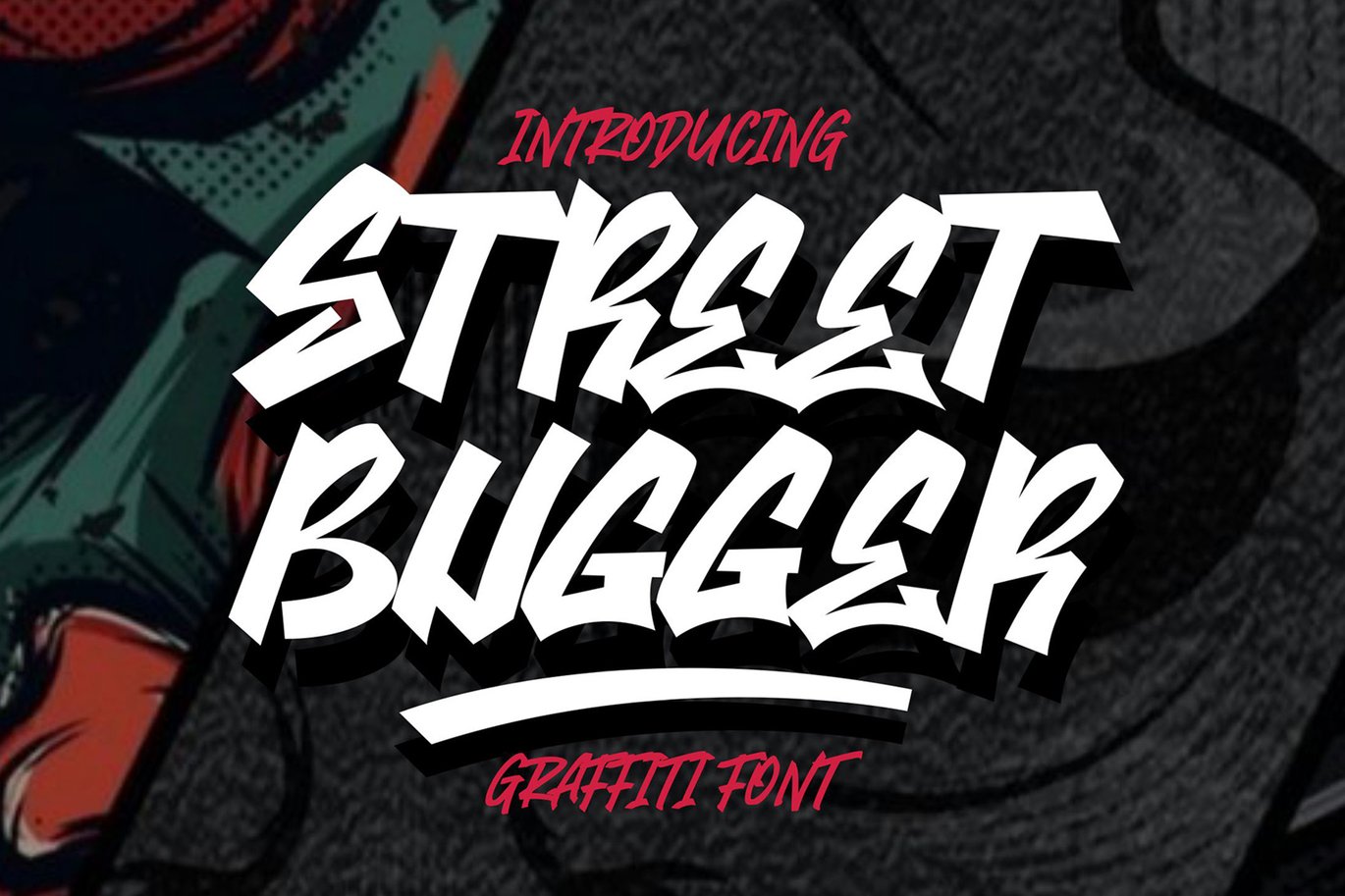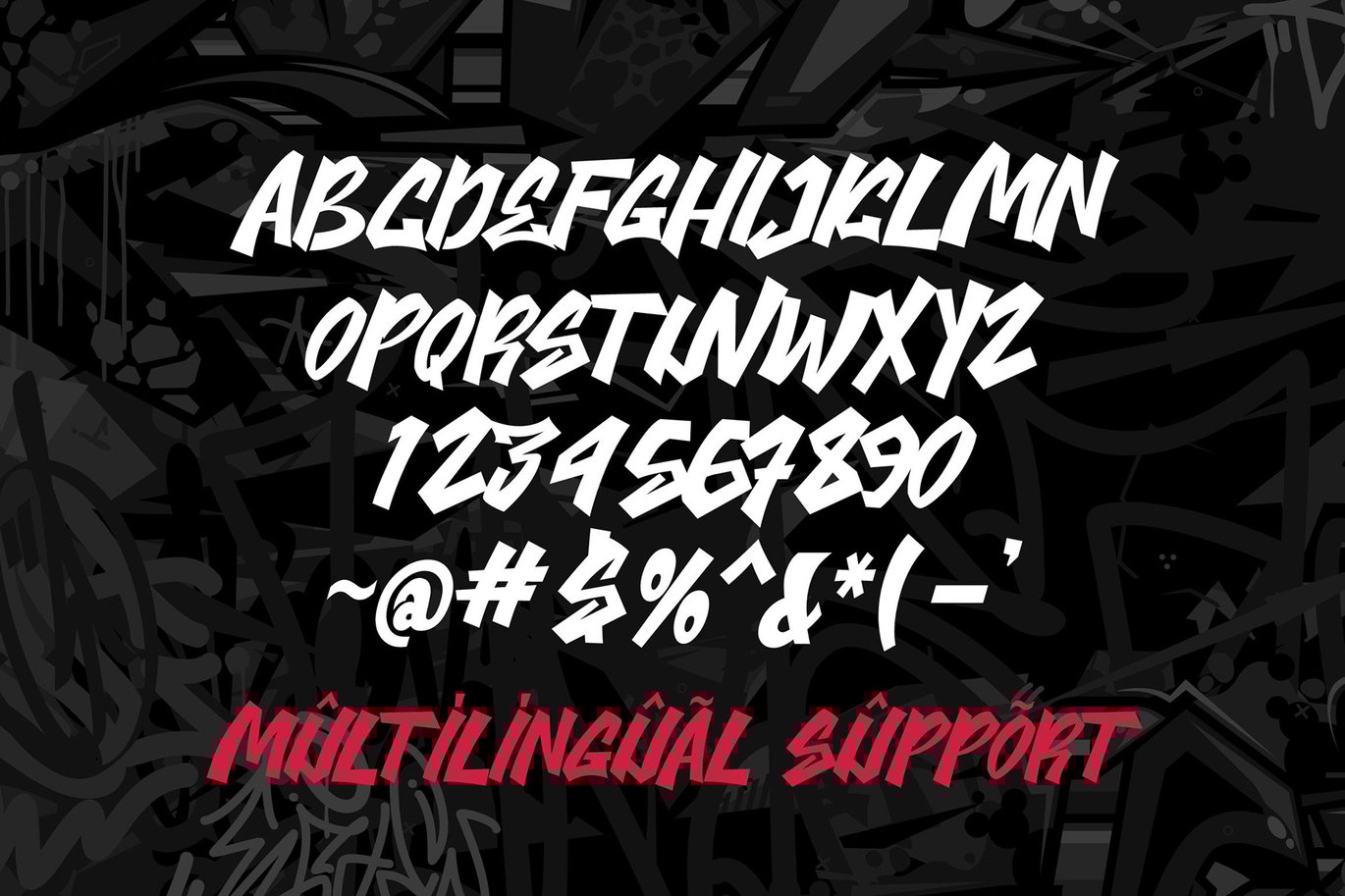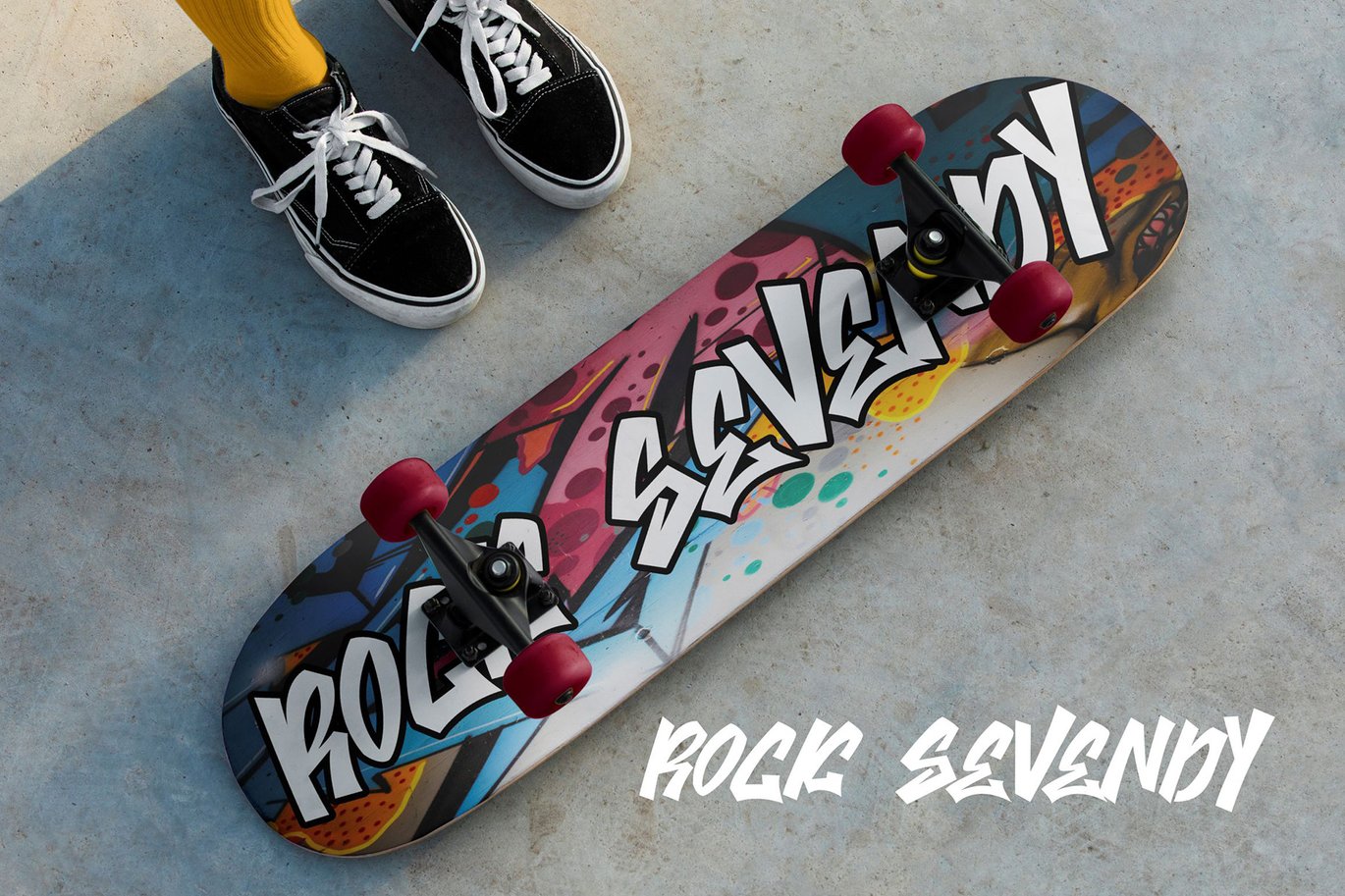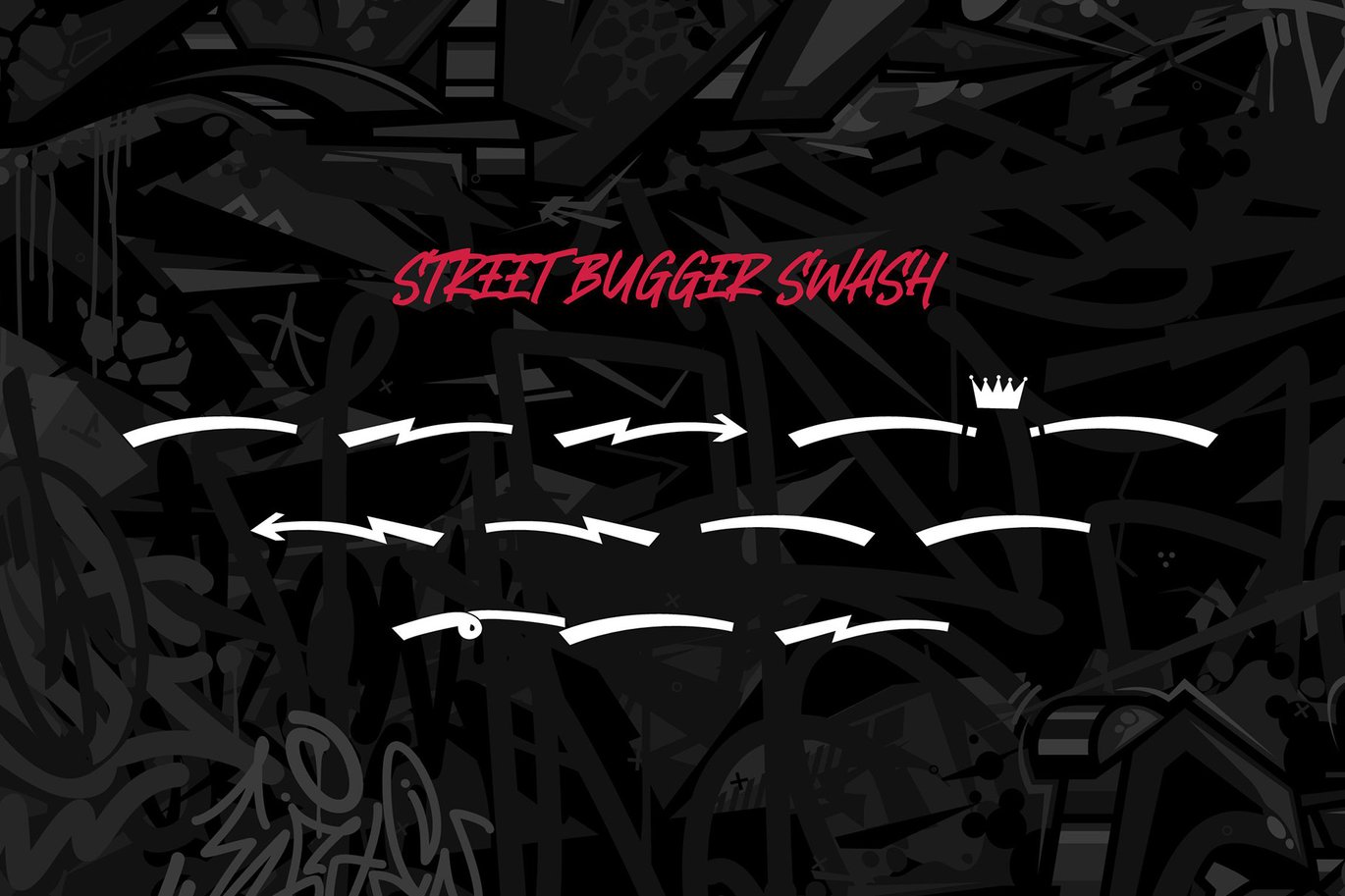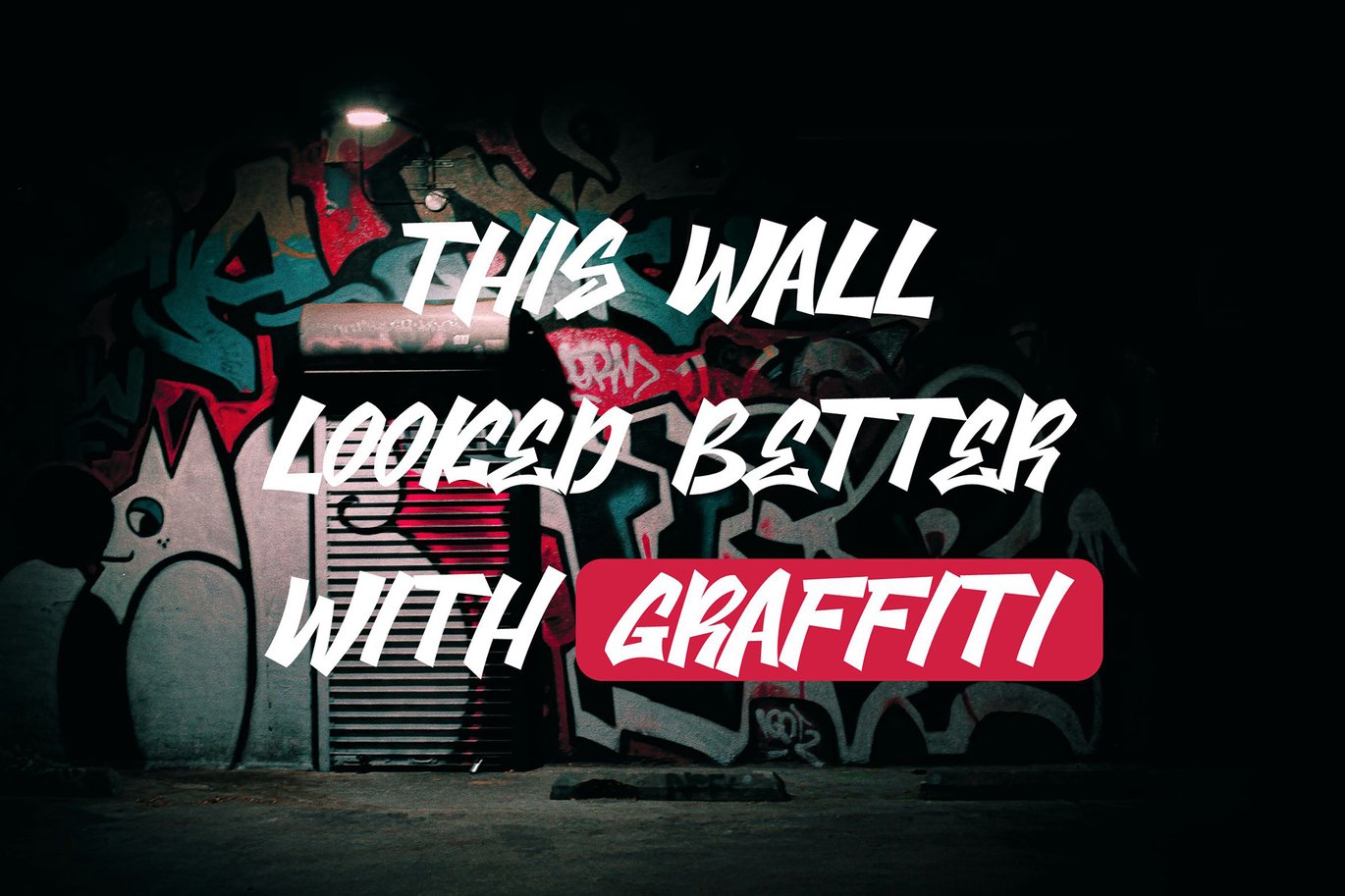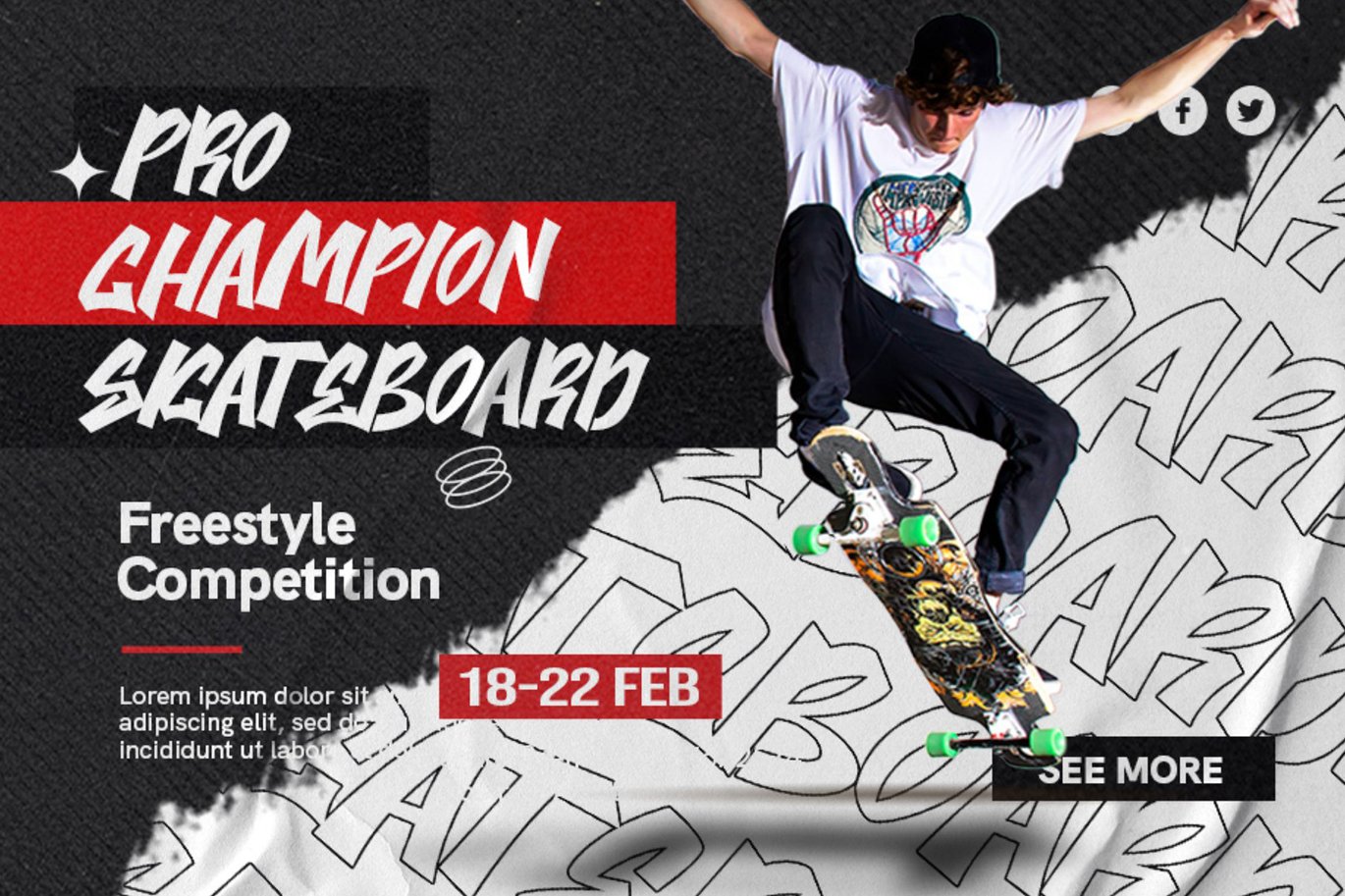
Street Bugger – Graffiti Font
Immerse your designs in the gritty and dynamic energy of the streets with Street Bugger, the graffiti font that injects urban rebellion into your typography. More than just a font, Street Bugger is a visual anthem of the streets, where each letter becomes a tag, a symbol of raw, unapologetic creativity that echoes the pulse of street art culture.
Crafted with streetwise precision, every stroke in Street Bugger is a declaration, capturing the essence of graffiti’s expressive and rebellious spirit. Whether you’re designing for posters or any project that demands an edgy aesthetic, this font ensures your words become a visual tagline, leaving an indelible mark on the canvas of contemporary typography. Street Bugger isn’t just a font; it’s an urban artist’s toolkit, turning your creations into a vibrant expression of gritty authenticity. Elevate your designs with the genuine and rebellious allure of Street Bugger – because on the streets of typography, this font speaks the language of graffiti with unmatched street credibility!